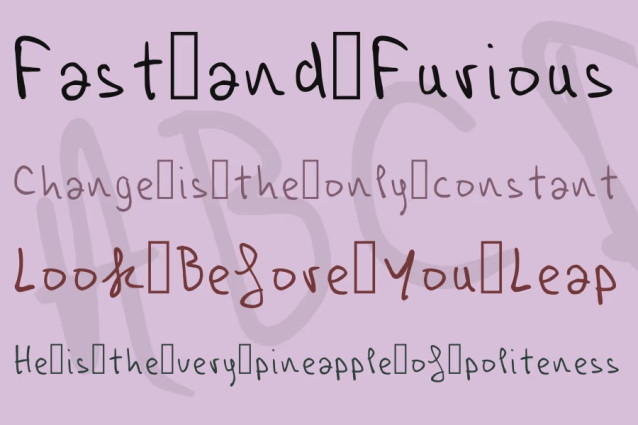
LostHandLir Font is a simple and modern handwriting font suitable for quotes, logos, headings, titles, and many more. Use it on any of your creative projects, and your designs will become outstanding!
LostHandLir Font
| Designer Name: | Lirkiv |